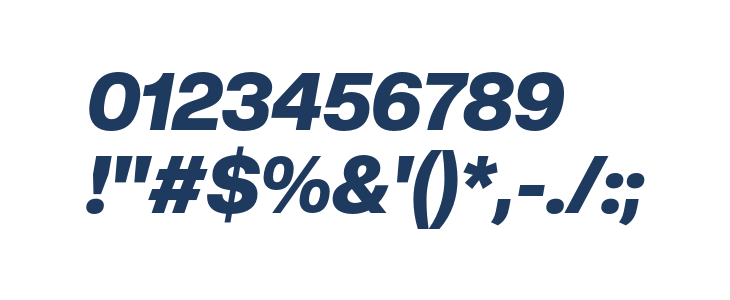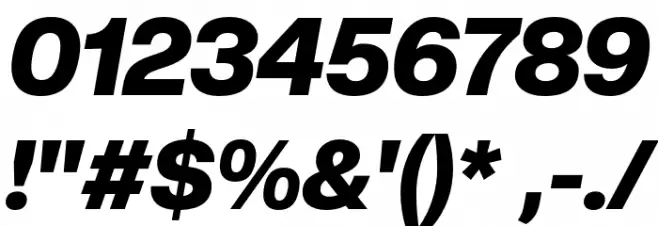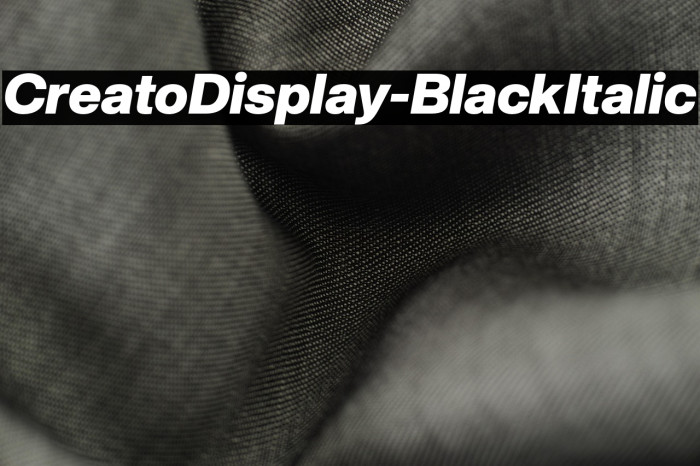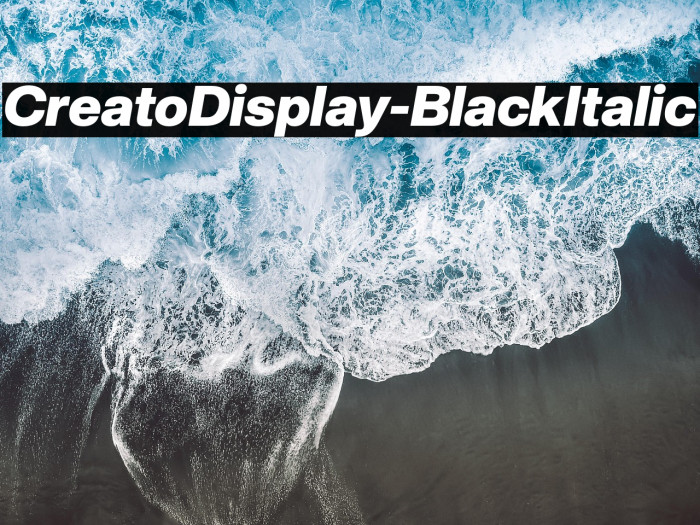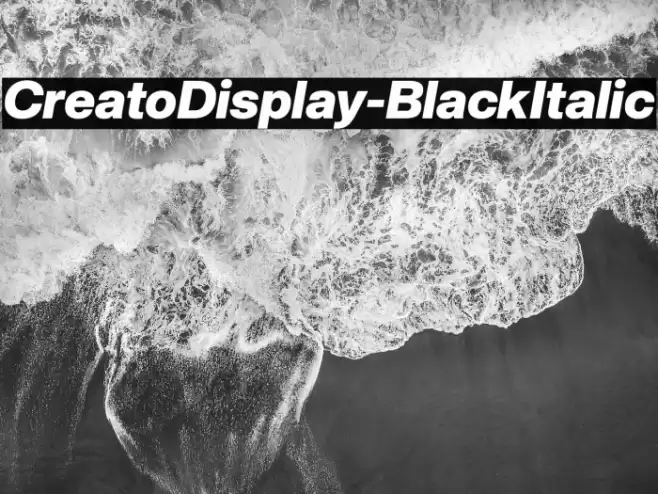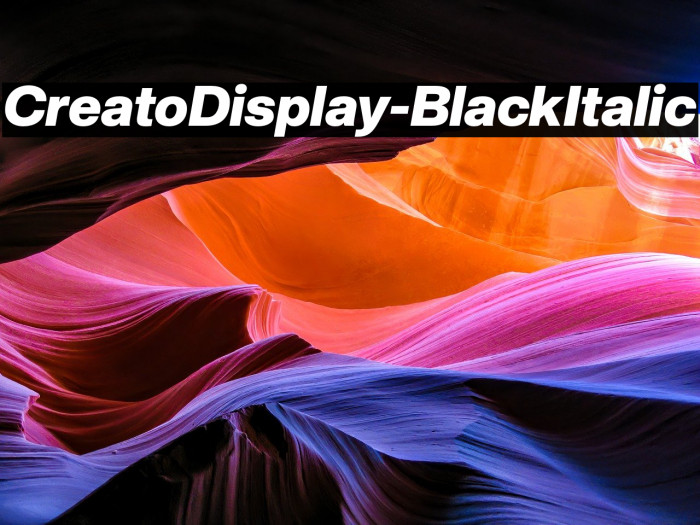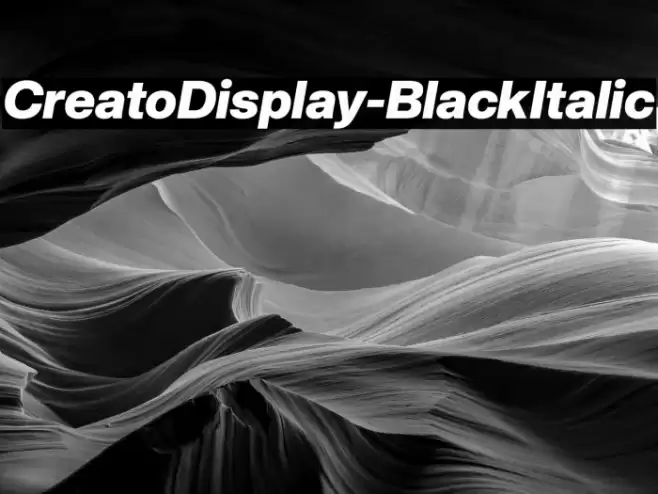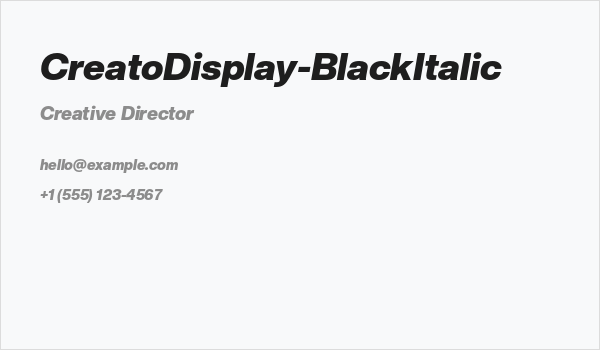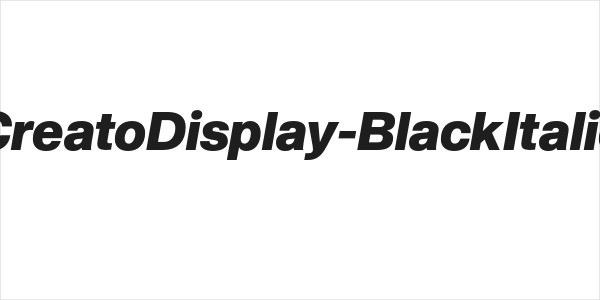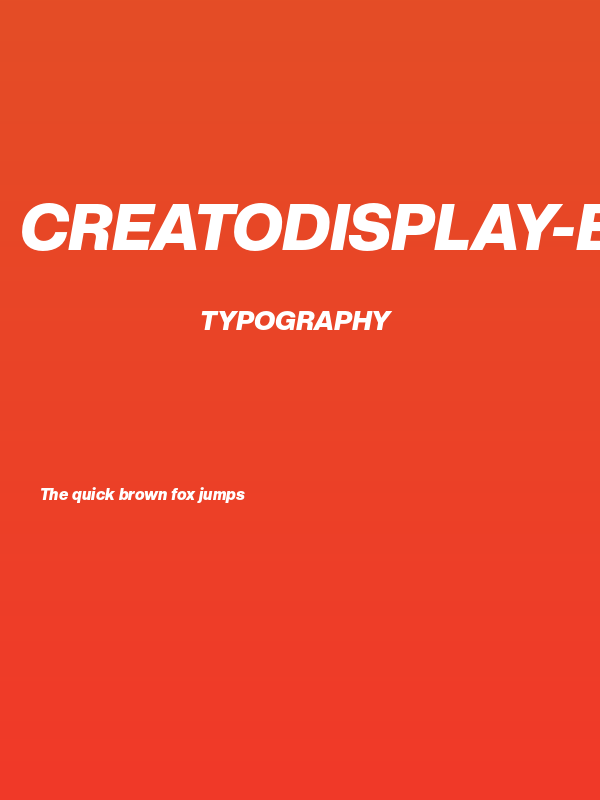
CreatoDisplay-BlackItalic Font
CreatoDisplay-BlackItalic Description
This font exhibits a bold and dynamic style with a pronounced italic slant, giving it a sense of movement and energy. The characters are thick and robust, ensuring high visibility and impact. The uppercase and lowercase letters maintain a consistent weight, contributing to a cohesive appearance. The numerals are equally bold, matching the assertive style of the alphabet. Special characters are designed with the same boldness, ensuring uniformity across all glyphs. The overall design is modern and assertive, making it suitable for attention-grabbing headlines and statements.
| Proposed Projects | Ideal for branding, advertising, posters, and any project requiring a strong visual impact. |